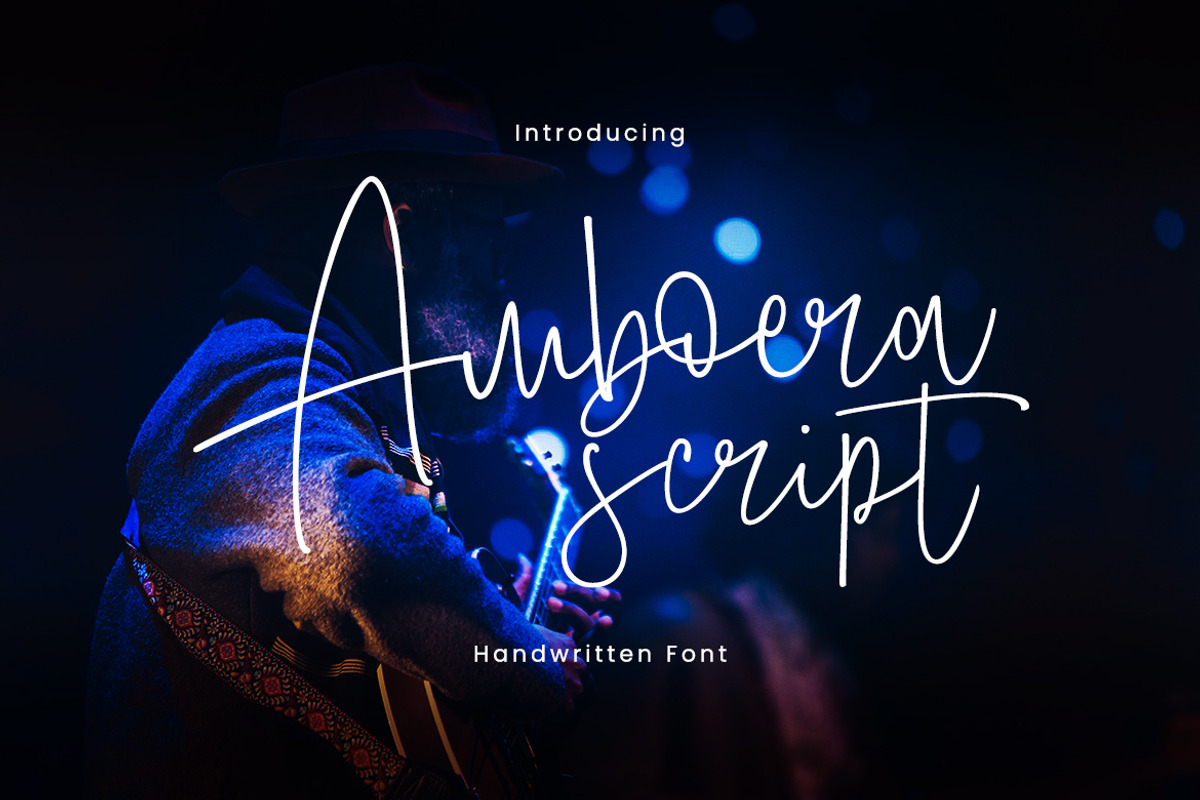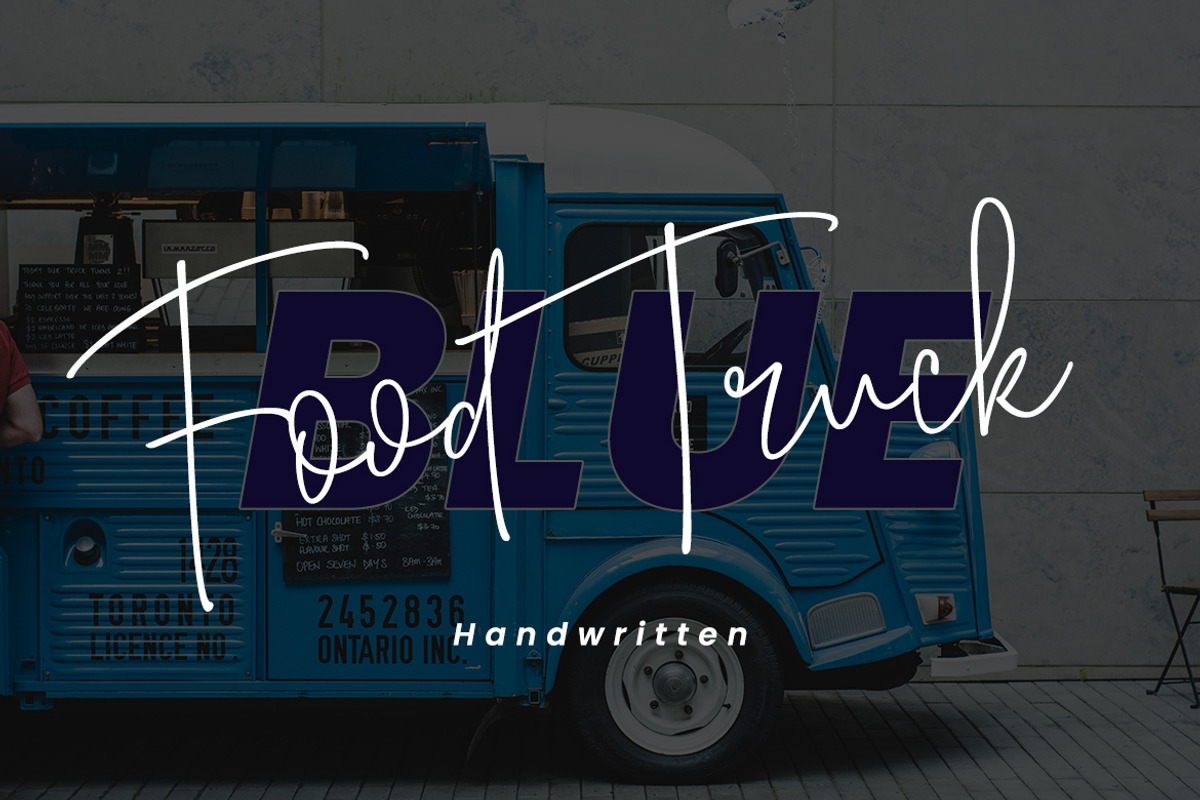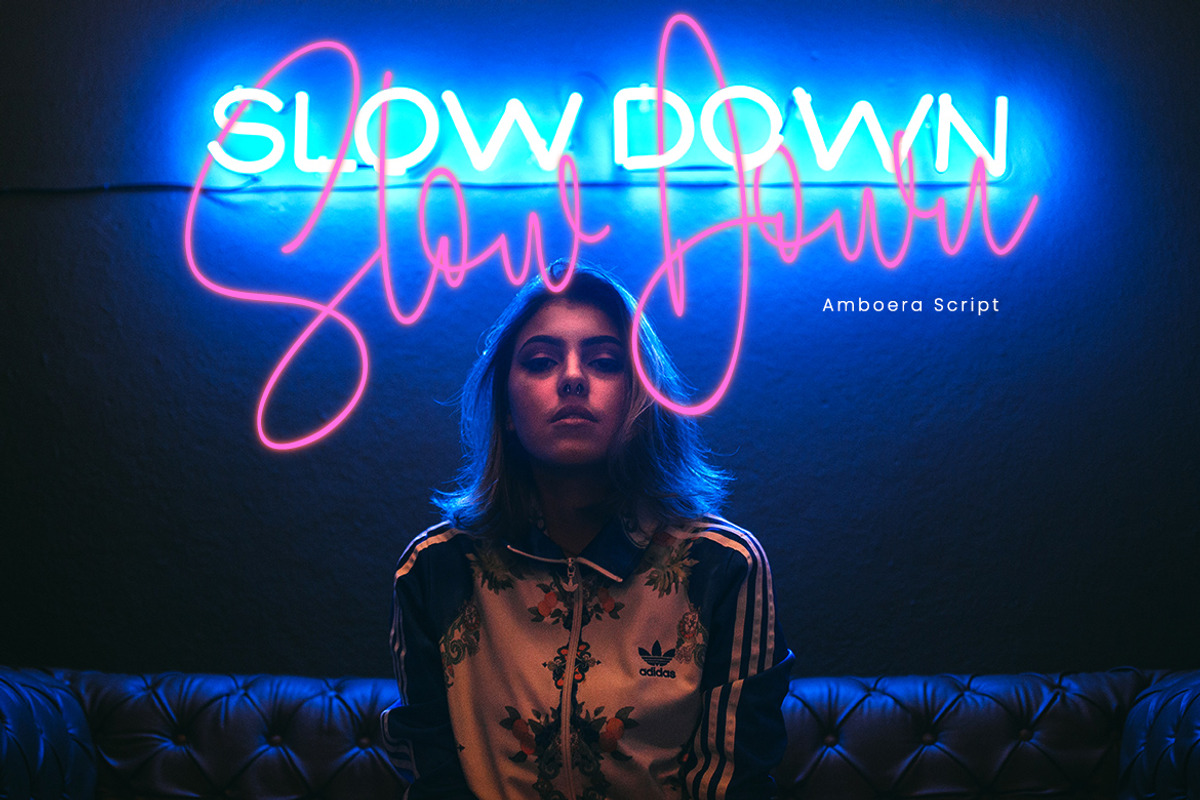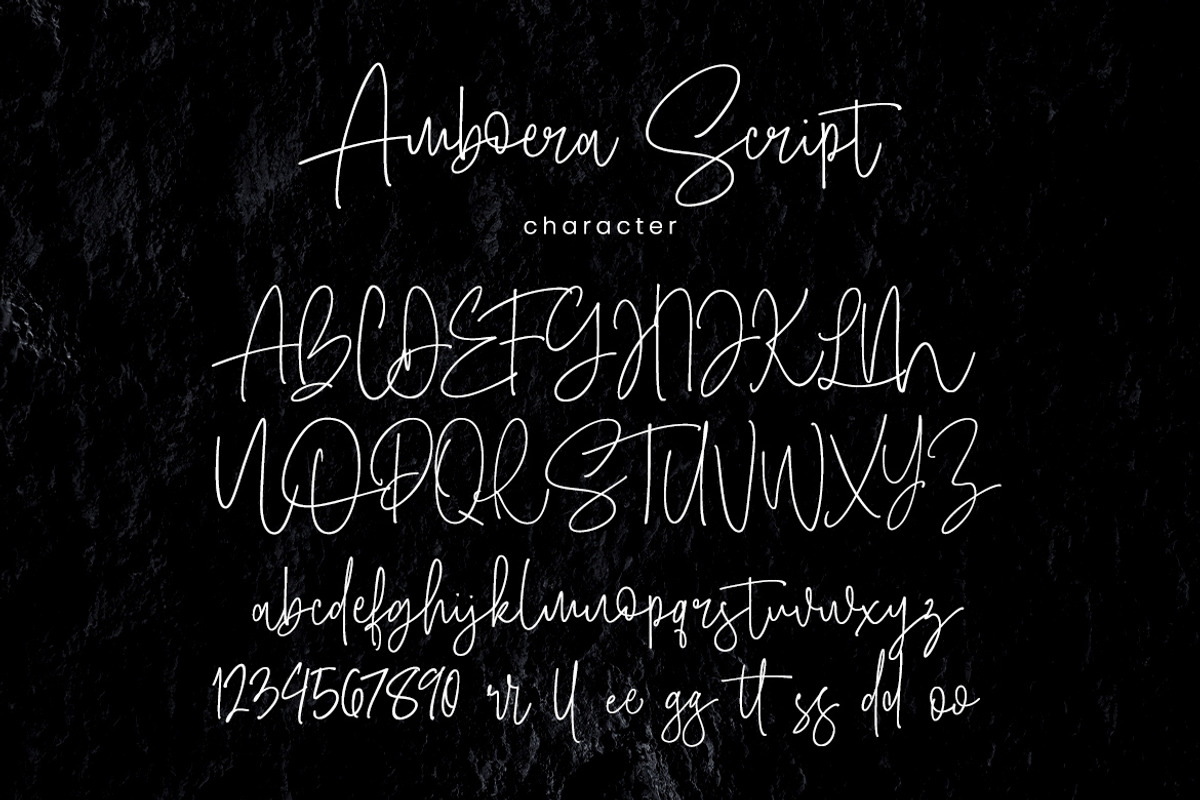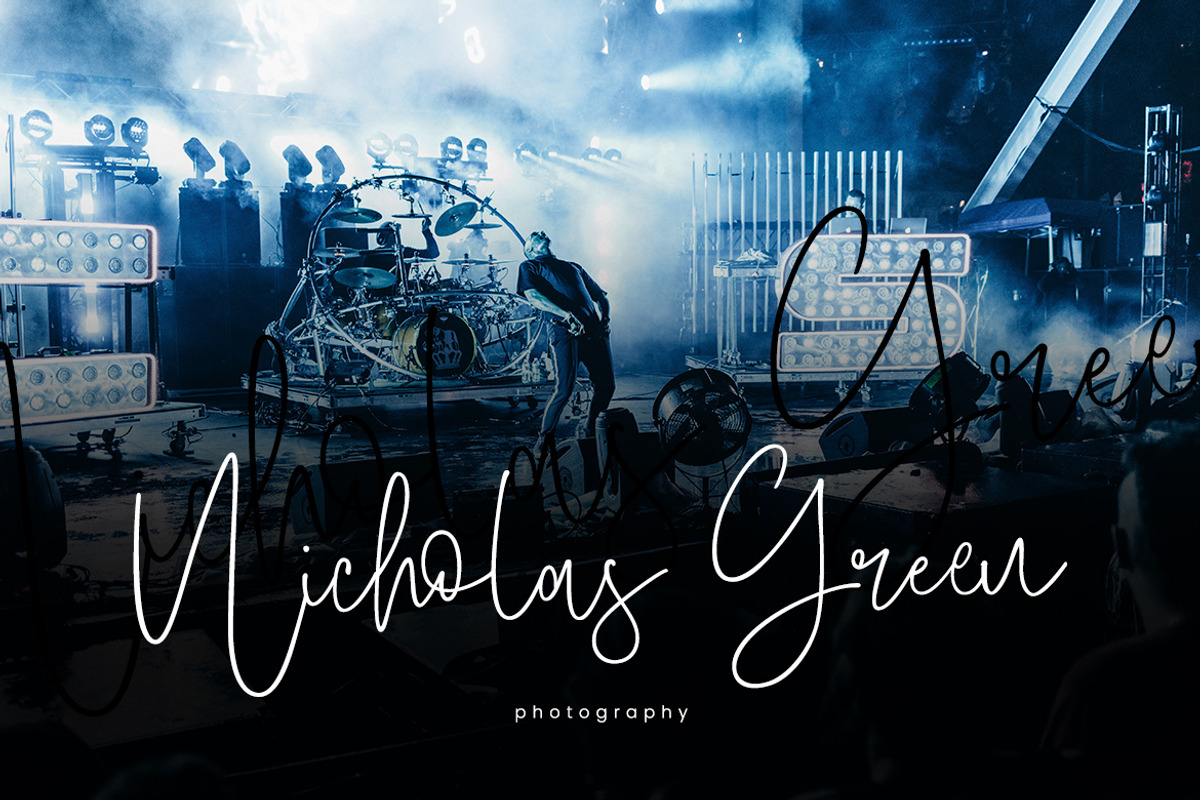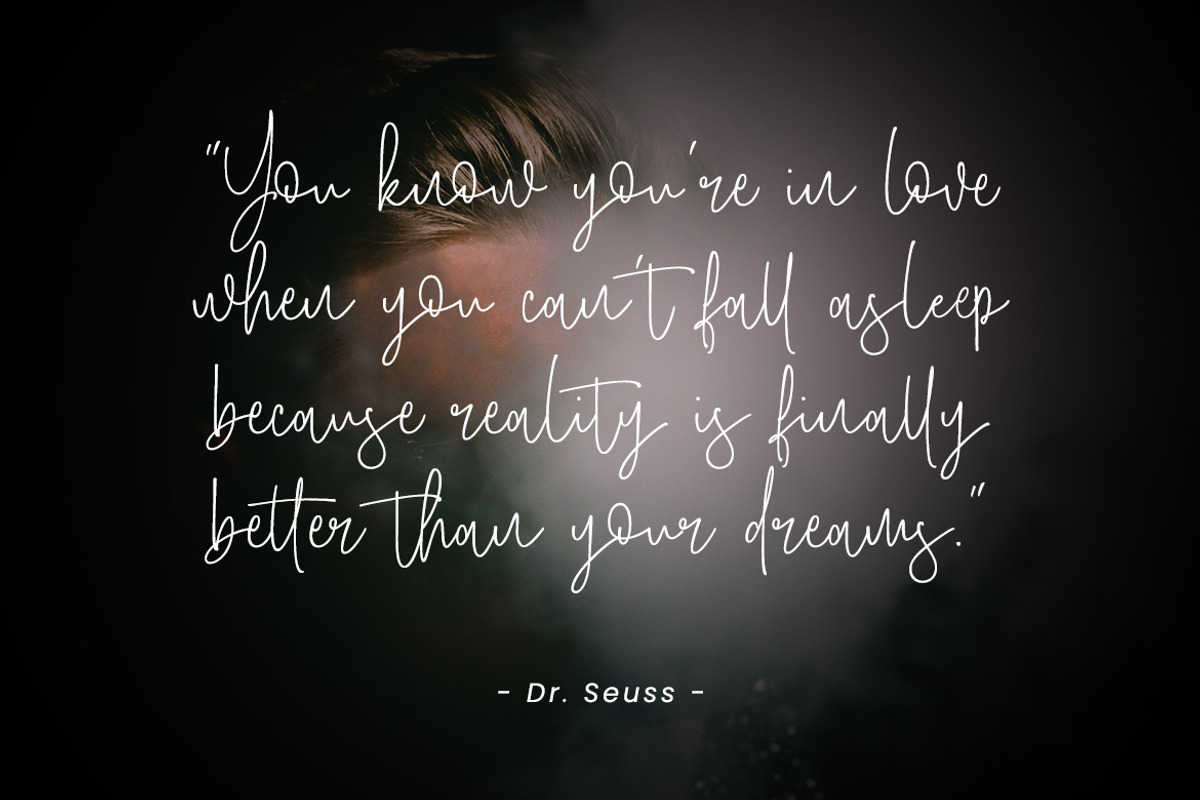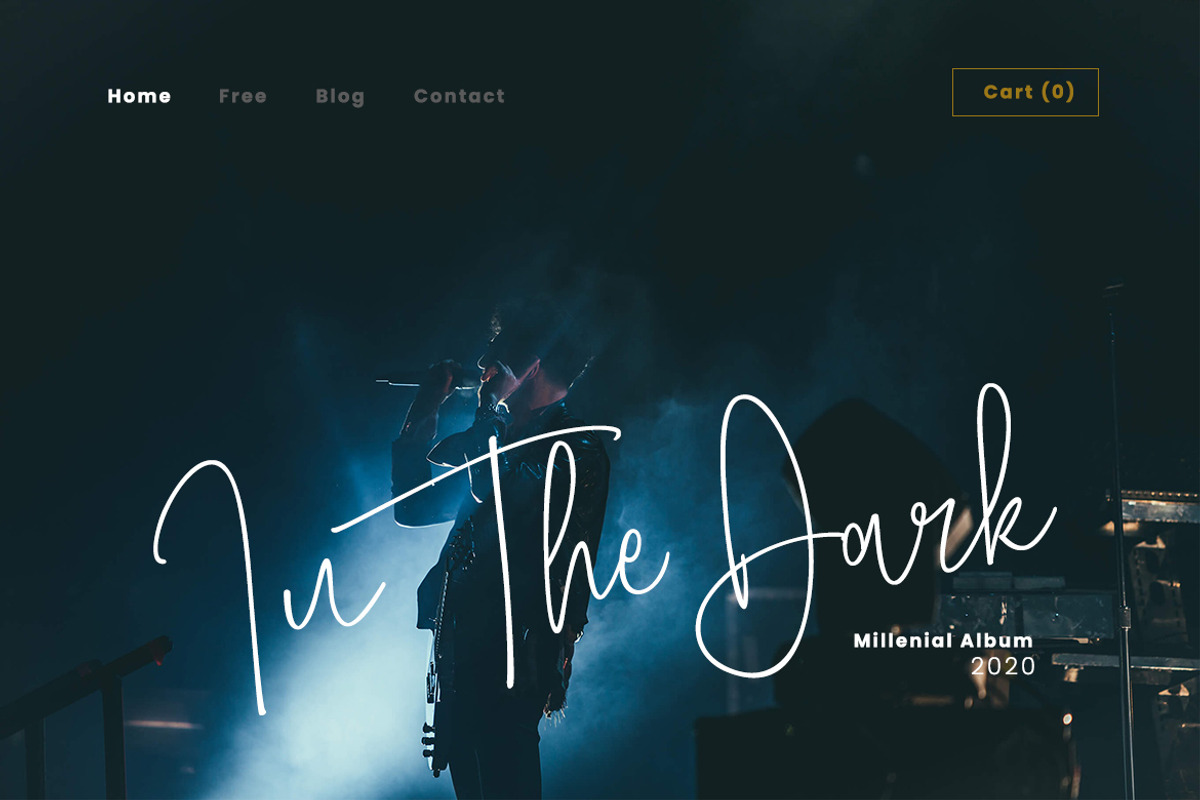
Amboera Script
Amboera Script is a delightful handwritten font that brings a playful vibe to your creative projects. With its charming curves and whimsical ligatures, this font is perfect for crafting eye-catching book covers that stand out on the shelves. Whether you’re designing a novel, a children’s book, or a journal, Amboera Script adds a personal touch that captivates readers and draws them in. Its unique stylistic alternates and swashes allow you to customize your text, ensuring that each design feels fresh and engaging.
Ideal for taglines, Amboera Script elevates your branding with its friendly and approachable style. Use it in marketing materials or social media graphics to convey a sense of warmth and creativity. This versatile font supports multilingual characters, making it a great choice for projects that reach a diverse audience. Available in multiple formats including TTF, OTF, WOFF, and WOFF2, Amboera Script is easy to integrate into your design workflow, ensuring that your creative ideas come to life effortlessly.
Ligatures • Are also available for several lowercase characters (double-letters which flow more naturally). These are only accessible via software with opentype capability or a glyphs panel, e.g. Photoshop/Illustrator.